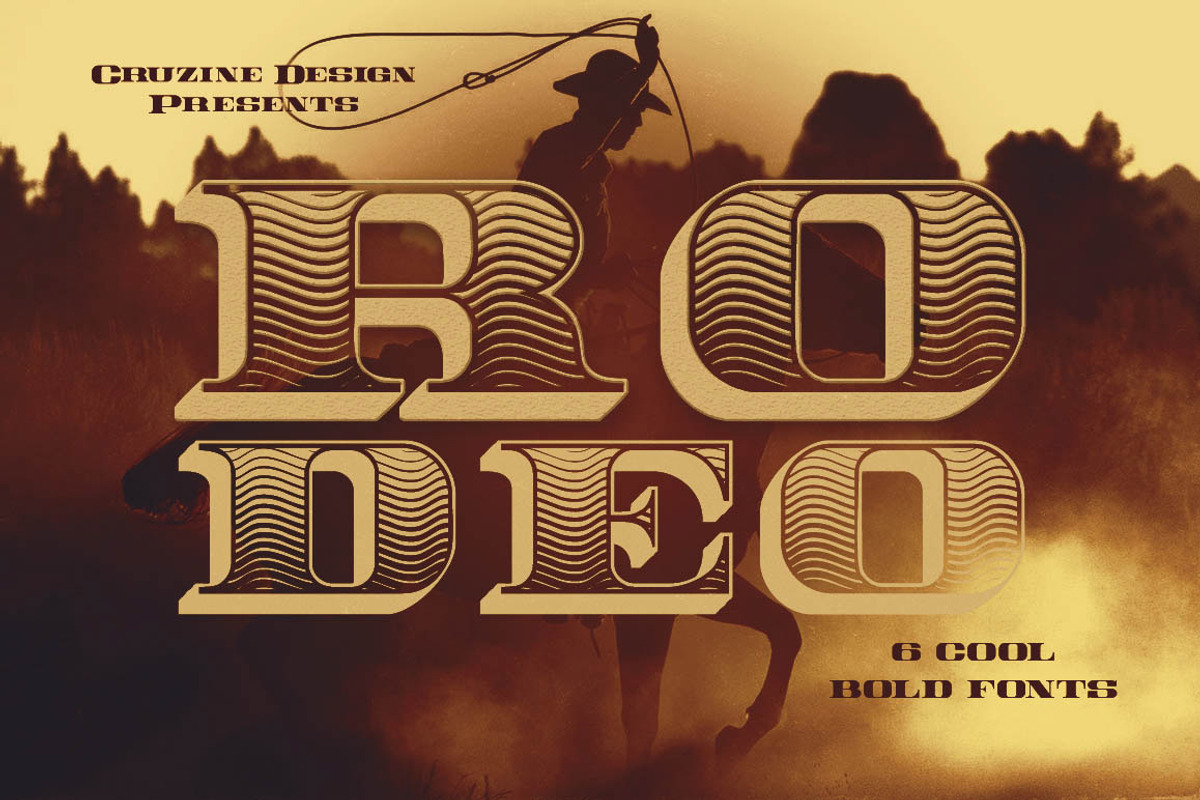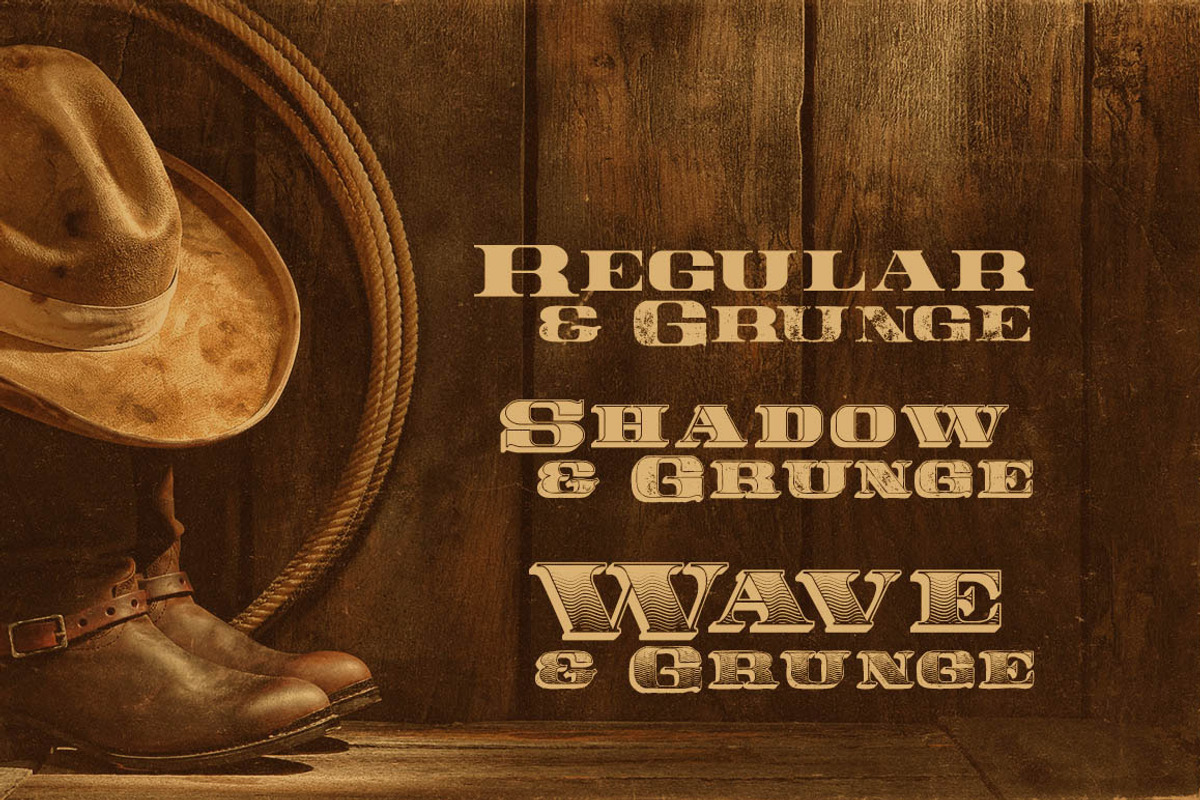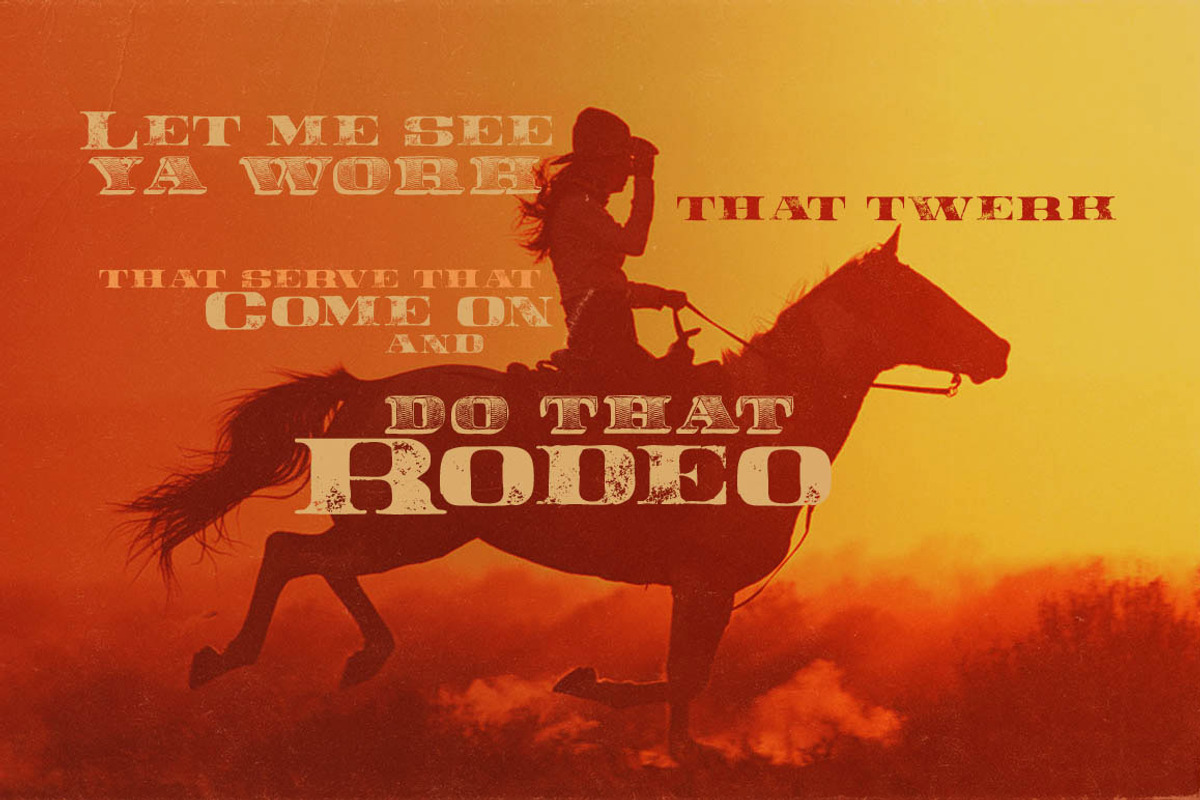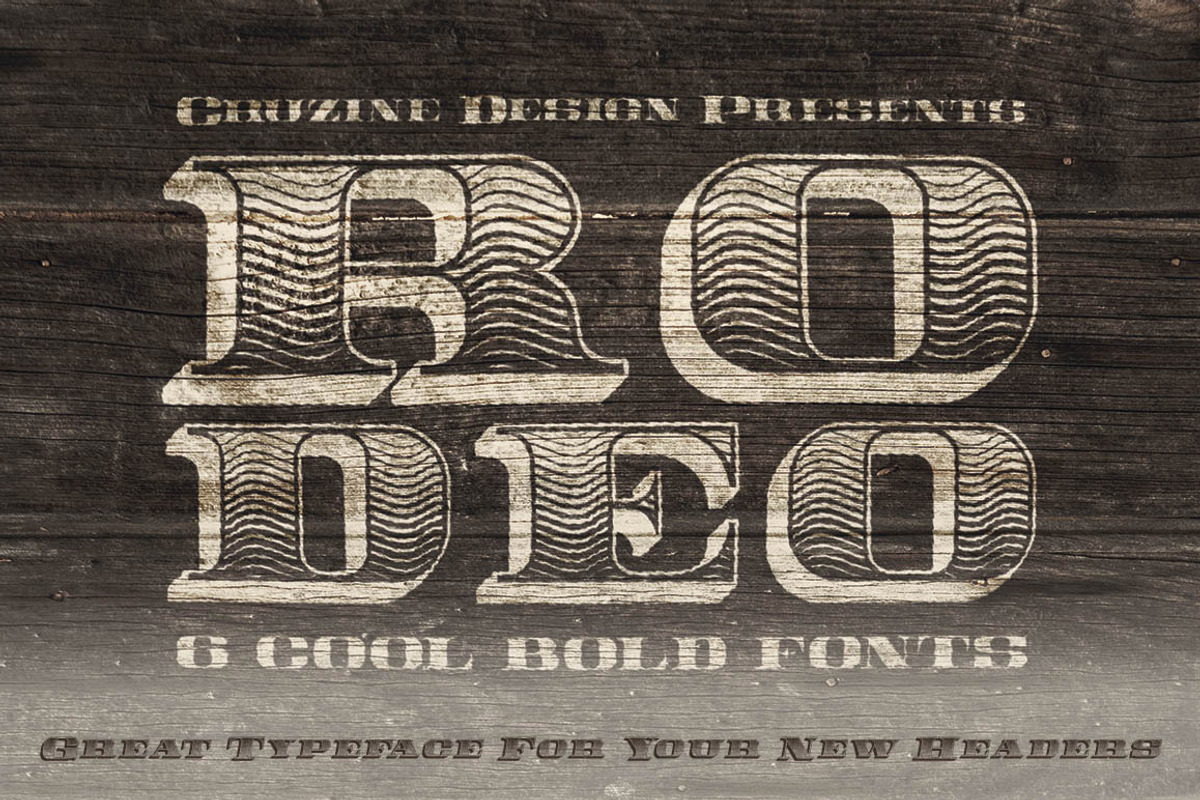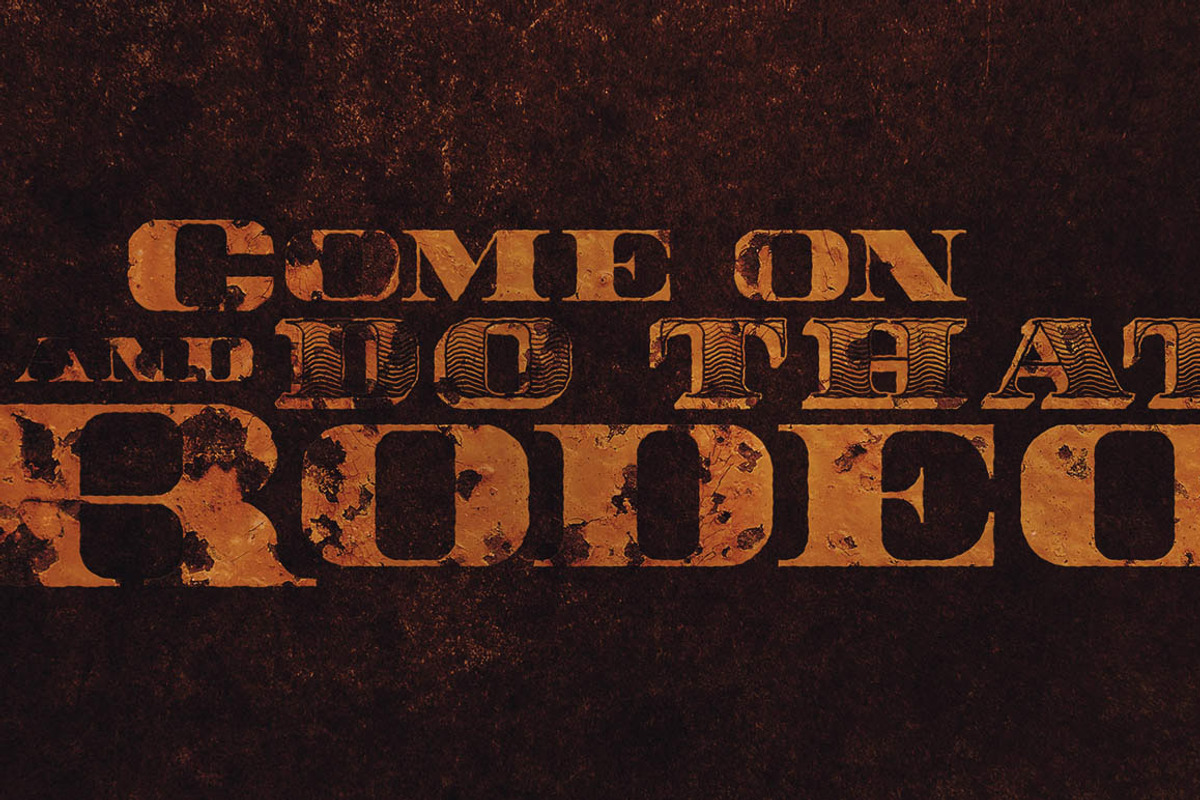
Rodeo Typeface
Rodeo Typeface by Cruzine is a font selected for branding, posters, packaging, typography.
Why Rodeo Typeface is worth a look
Rodeo Typeface by Cruzine fits naturally into Branding, posters, packaging, typography.